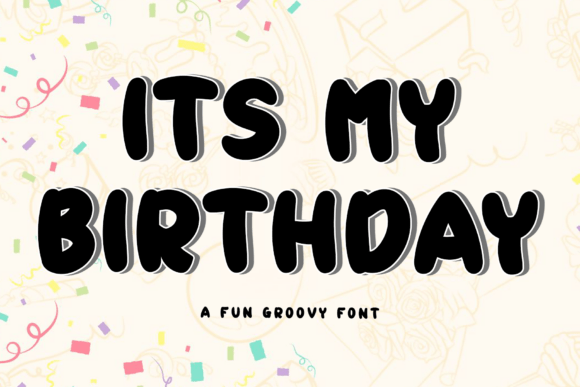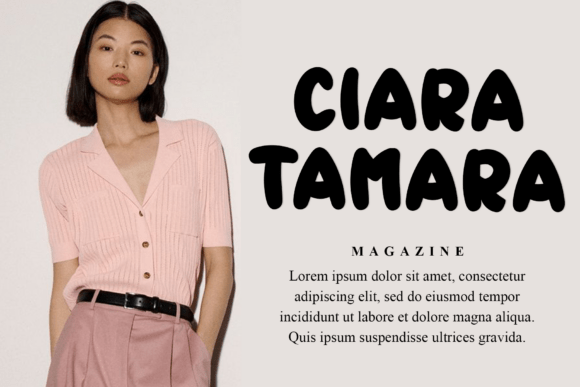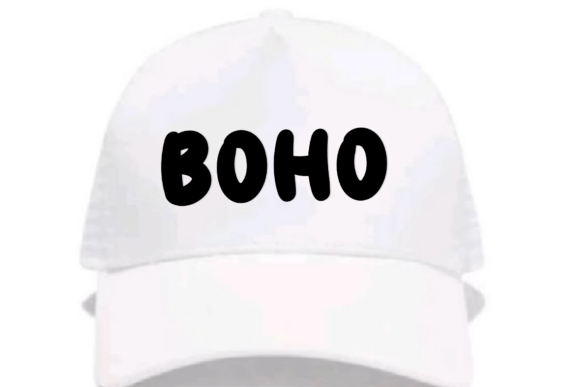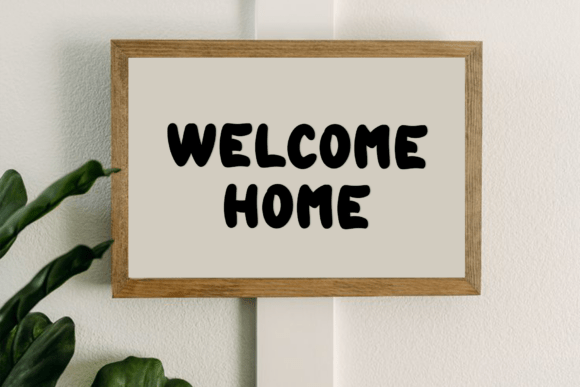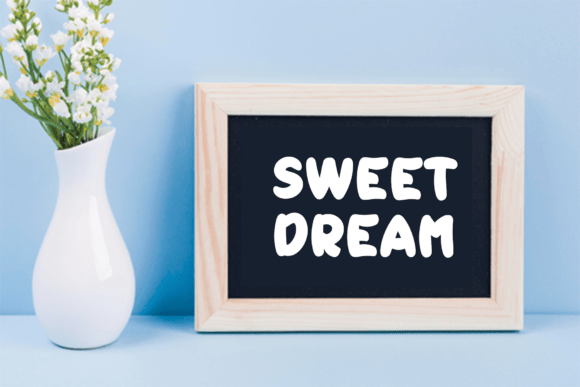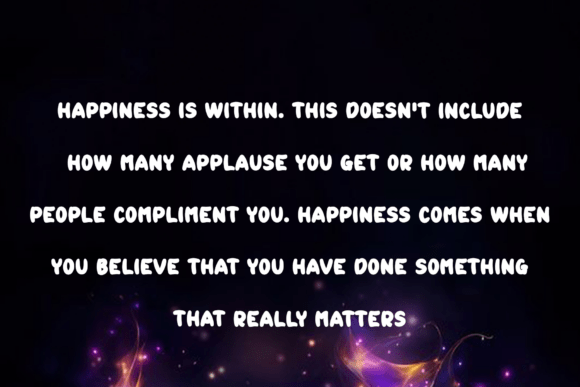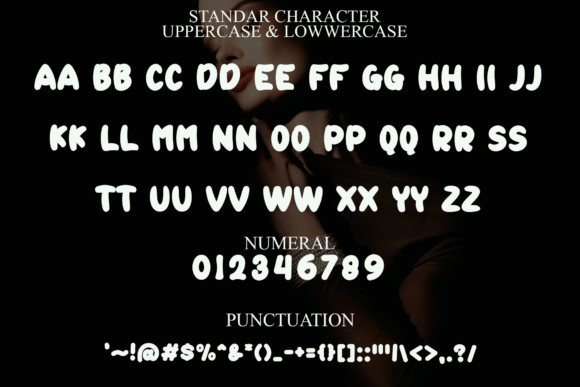
Time to Get This Party Started: The Magic of Its My Birthday Font
It’s that time of the year again – birthdays, celebrations, and endless social media posts to commemorate the special day. As a designer, you’re probably tasked with creating eye-catching invitations, graphics, and messages that capture the joy and excitement of the occasion. But have you ever thought about how the right font can elevate your design game?
Enter Its My Birthday Font – a charming, hand-drawn typeface that exudes warmth and friendliness. This delightful font is designed to add a fun and unique touch to any design, making it perfect for personal projects, social media graphics, and invitations. With its round, playful strokes and standard PUA Encoded glyphs, Its My Birthday Font is a valuable addition to any designer’s toolkit.
Key Features of “It’s My Birthday Font”
- Unique Characteristics: The font features bold and playful letters, perfect for birthday celebrations, parties, and other special occasions
- Font Style: The font is a sans-serif font with a modern and fun design
Its My Birthday Font Review
Overall, I think “Its My Birthday Font” is a fun and playful font that’s perfect for birthday invitations, party decorations, or any other celebration-related designs. ✨ Here are some things I like about it:
- Unique and quirky design: The font’s irregular shapes and curves give it a one-of-a-kind feel that’s sure to stand out.
- Highly customizable: The font comes in a range of weights and styles, making it easy to adapt to different design needs.
- Easy to read: Despite its playful appearance, the font is surprisingly easy to read, even at small sizes.
However, I do have some concerns about the font’s limitations:
- Limited use cases: While the font is perfect for birthday-related designs, it may not be the best choice for more formal or professional projects.
- Lack of versatility: The font’s quirky design may not translate well to more subdued or minimalist designs.
- Potential legibility issues: While the font is easy to read in most cases, it may not be suitable for very small sizes or certain typography settings.
Overall, I think “Its My Birthday Font” is a great choice for designers who want to add a playful touch to their projects. With some careful consideration of its limitations, this font can be a valuable addition to any designer’s toolkit.
Here are some tips to get the most out of the “It’s My Birthday Font”:
- Use it in bold and italics to add emphasis.
- Combine it with other fonts to create a unique look.
The “It’s My Birthday Font” is commonly used for:
- Birthday invitations and cards.
- Party decorations and signage.
Alternatives to “Its My Birthday Font” for Designers
Great Vibes Font is a modern, elegant script font that can be used for birthday invitations, party decorations, and other celebratory designs. It is ideal for creating a sophisticated and luxurious look. Compared to Its My Birthday Font, Great Vibes Font has a more refined and less playful feel.
Dancing Script Font is a lively, handwritten font that can add a touch of whimsy to birthday designs. It is perfect for creating a fun and festive atmosphere. Unlike Its My Birthday Font, Dancing Script Font has a more fluid and dynamic feel.
Carolyna Pro Font is a stylish, modern script font that can be used for a variety of designs, including birthday invitations and party decorations. It has a clean and sophisticated look that is similar to Its My Birthday Font, but with a more subtle and elegant feel.